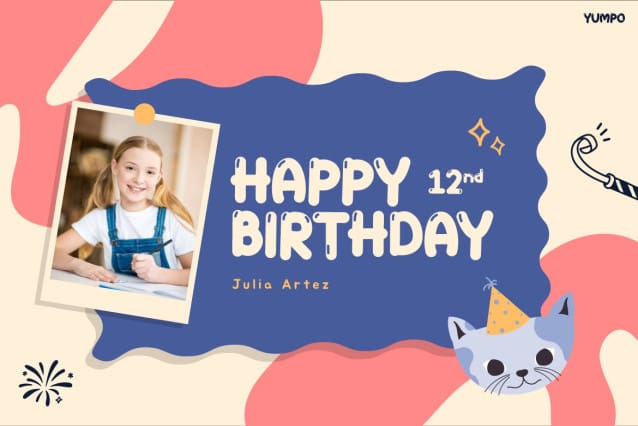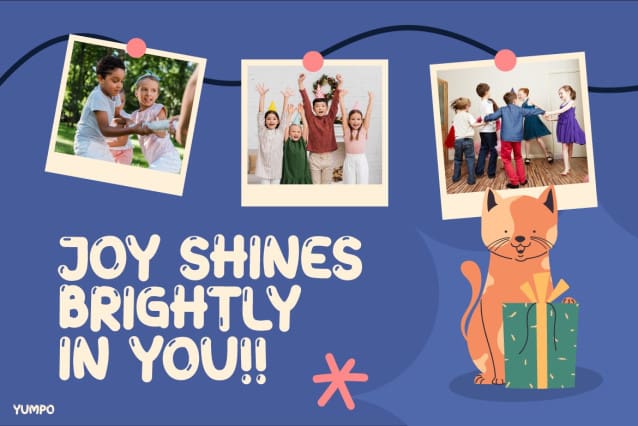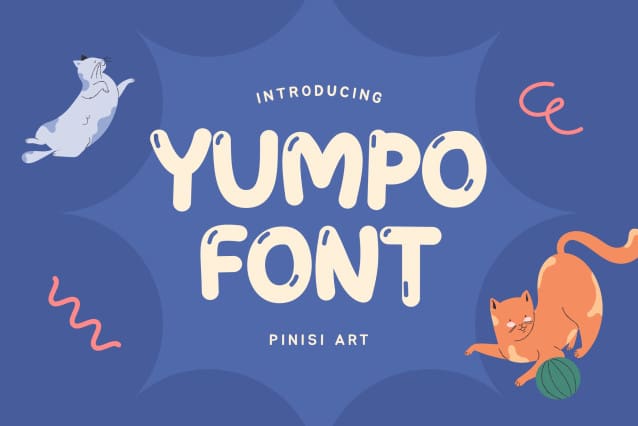
Yumpo Font
Yumpo Font is a delightful display typeface that brings a spark of happiness and imagination to every design. From the very first glance, this font stands out with its rounded shapes, bouncy energy, and friendly charm. Each letter feels alive, dancing across the page with a sense of curiosity and fun. Moreover, its smooth lines and well-balanced curves create a comforting and creative look, making every message feel personal and full of joy. Because of its hand-drawn style and strong readability, it’s not only adorable but also highly practical for both digital and print use.
In addition, Kids Font Yumpo adds a touch of childlike wonder that makes your words pop with positivity. It’s perfect for projects that need a joyful spirit — from classroom posters to storybook covers. The font’s cheerful personality ensures that every design feels warm, welcoming, and full of heart.